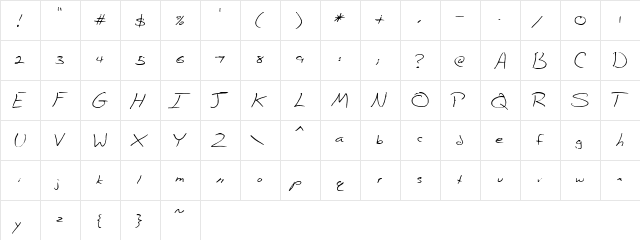
Shane Hand
| Style | Hand |
| Foundry | Font Garden |
| Designer | Ellinor Rapp |
Design Context for Shane Typeface
Shane flows with the natural rhythm of handwritten lettering, making it ideal for designs that call for warmth and personal expression.